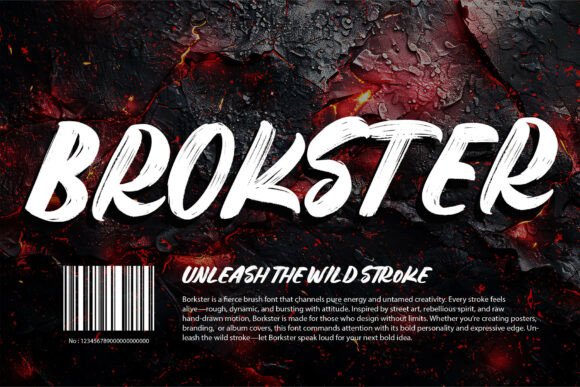
Introducing Brokster: The Bold Brush Font That Breaks the Rules
Have you ever been in the middle of a design project, pouring your heart and soul into it, and suddenly realized that something’s missing? You’re not quite sure what it is, but you know it’s not quite right. For me, that moment came when I was working on a streetwear branding project, and I just couldn’t find a font that captured the raw energy and rebellious vibe I was looking for.
That’s when I stumbled upon Brokster, a bold brush font that’s equal parts gritty, wild, and unapologetically bold. From the first glance, I knew I’d found what I was looking for. Brokster doesn’t whisper — it shouts, roars, and breaks through the noise.
The Brokster Difference: Raw Energy and Unfiltered Expression
Brokster is more than just a font — it’s an attitude, a vibe, a way to express yourself without apology. Every stroke of Brokster carries the energy of unfiltered expression, blending hand-drawn chaos with powerful design intent. Its rough textures and unpredictable flow deliver a rebellious vibe perfect for:
- Streetwear branding
- Music covers
- Bold logos
- Action-packed posters
- Branding that craves edge and impact
What I Love About Brokster ✨
- ✅ Unique and authentic look: Brokster’s raw, hand-drawn feel sets it apart from more polished fonts.
- ✅ Highly versatile: Use it for bold statements, logos, or as a accent font to add edge to your designs.
- ✅ OpenType features and PUA encoding: Get creative with alternates, glyphs, and stylistic sets.
- ⚠️ Legibility at small sizes: Brokster’s bold, textured look can get lost at very small font sizes.
- ⚠️ Pairing with other fonts: Finding the right font pairing can be tricky — experiment to find the perfect match.
The Story Behind Brokster: Designer Inspiration
Brokster was born from a desire to create a font that embodies the raw energy of street culture. Inspired by the likes of graffiti artists and streetwear designers, Brokster’s creator set out to craft a font that’s unapologetically bold and rebellious. The result is a font that’s equal parts rough, gritty, and beautiful.
Q: What makes Brokster unique?
A: Brokster’s unique blend of hand-drawn chaos and powerful design intent sets it apart from other fonts.
Q: Is Brokster suitable for body text?
A: Brokster’s bold, textured look makes it better suited for headlines and titles rather than body text.